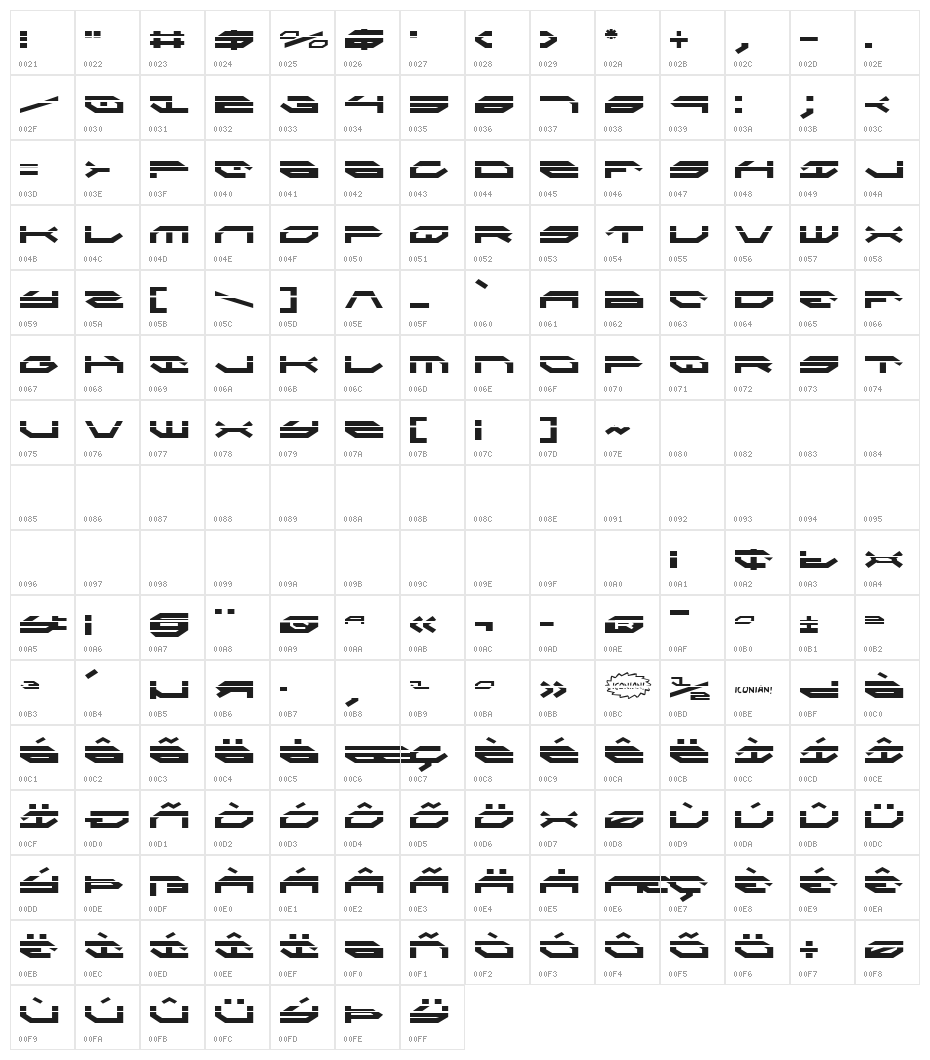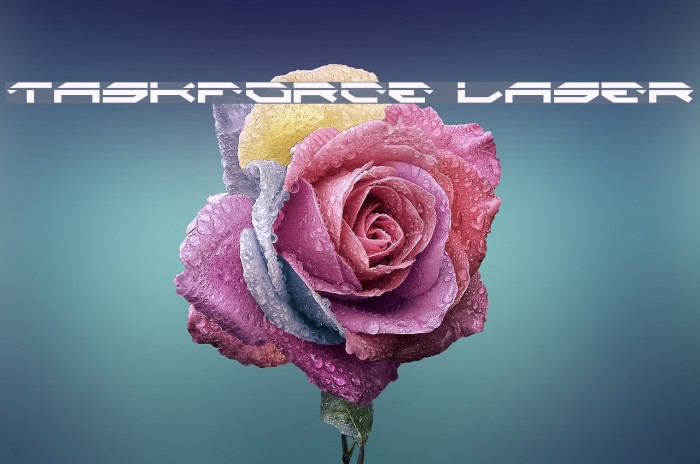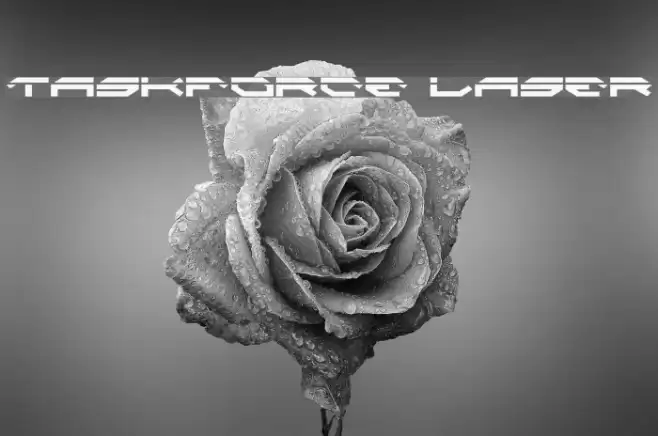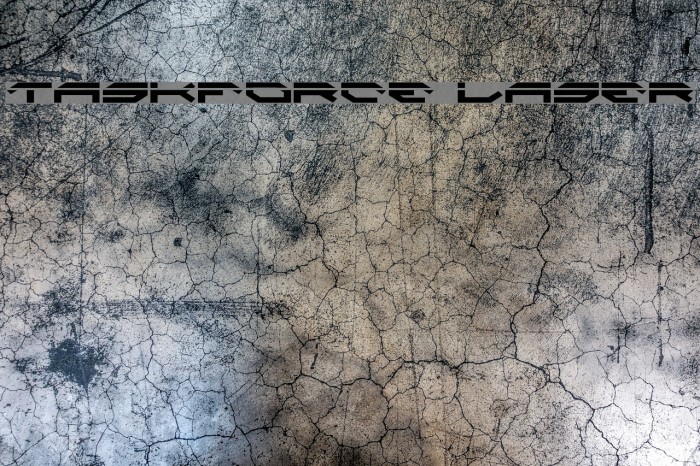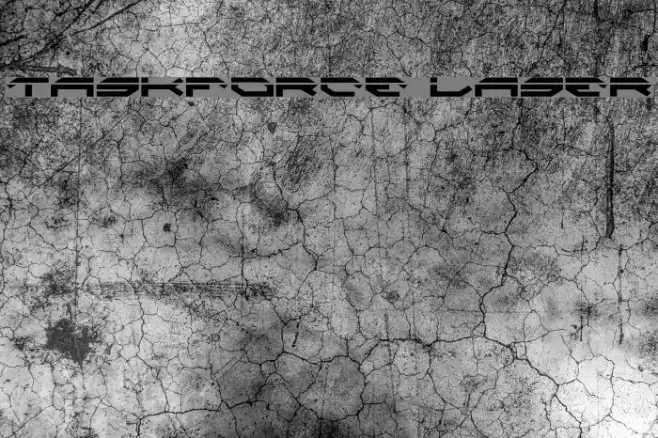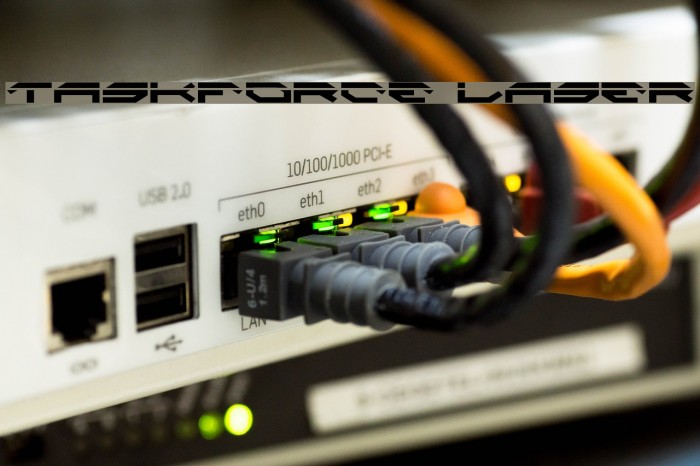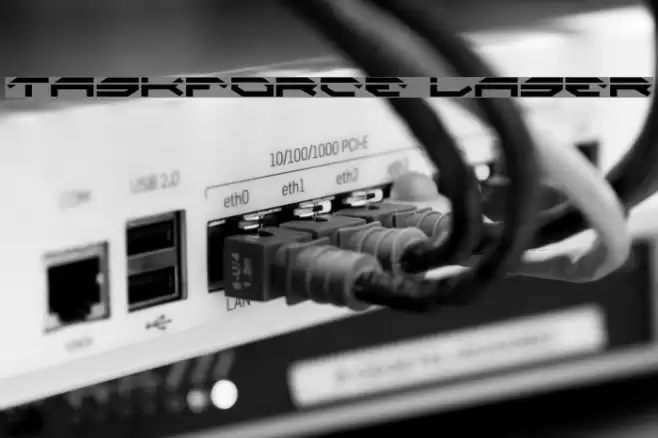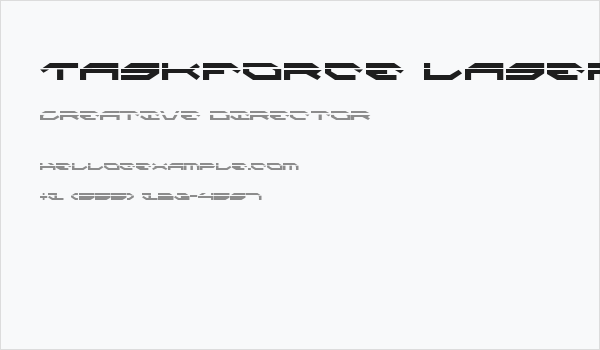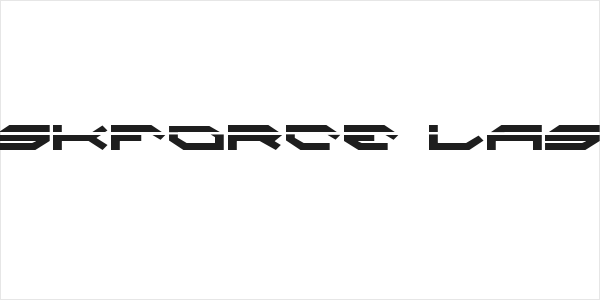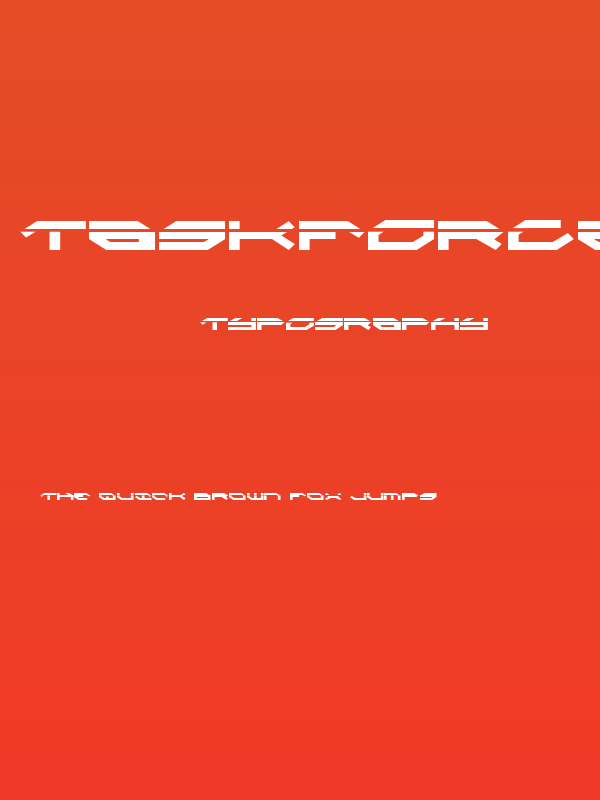
Taskforce Laser Font
Taskforce Laser Description
This font features a futuristic and angular design, characterized by sharp edges and geometric shapes. The letters are constructed with a series of straight lines and angles, giving it a high-tech and digital appearance. The uppercase and lowercase letters maintain a consistent style, with a focus on symmetry and precision. The numerals and special characters are designed to match the overall aesthetic, ensuring a cohesive look across all glyphs. This font is ideal for projects that require a modern and cutting-edge feel, such as technology branding, sci-fi themes, or gaming interfaces.
| Proposed Projects | Ideal for technology branding, sci-fi themes, gaming interfaces, and digital media. |